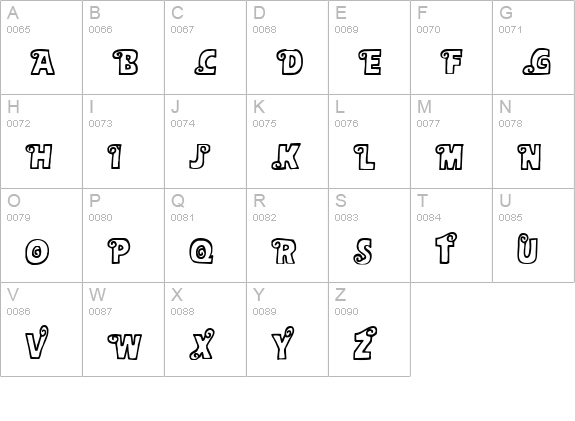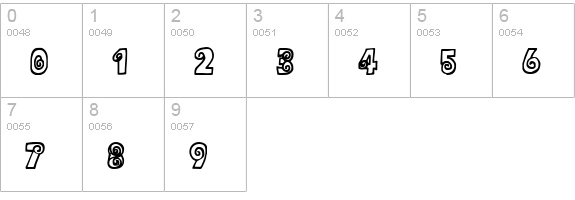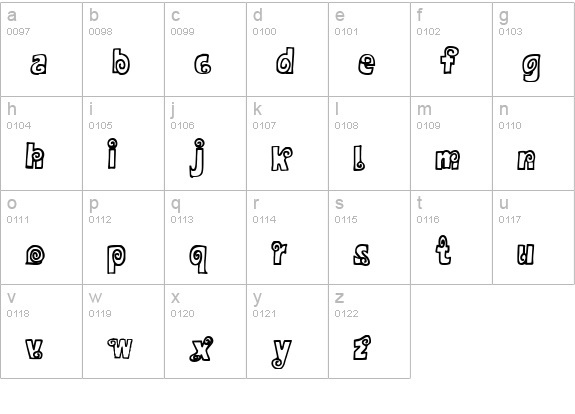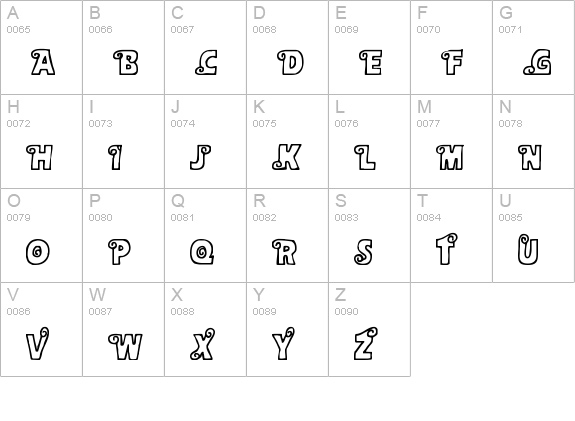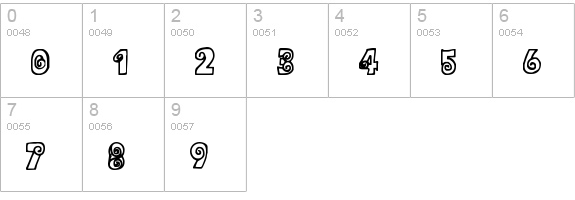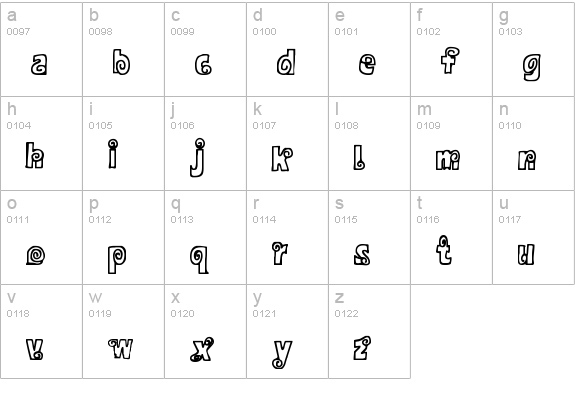
Alphasnail Font Details
Alphasnail font is a whimsical and playful typeface that exudes charm and creativity. With its unique design featuring curvy lines and fun shapes, it adds a touch of quirkiness to any project it is used in. Whether you are working on a children's book, a poster, or a logo, Alphasnail font is sure to catch the eye and leave a lasting impression. The best part about Alphasnail font is that it is completely free to download at FontsMarket.com. This means that you can easily access this delightful font without having to spend a penny. So go ahead and give your designs a fun and quirky twist with Alphasnail font - the perfect choice for those looking to add a touch of whimsy to their projects.